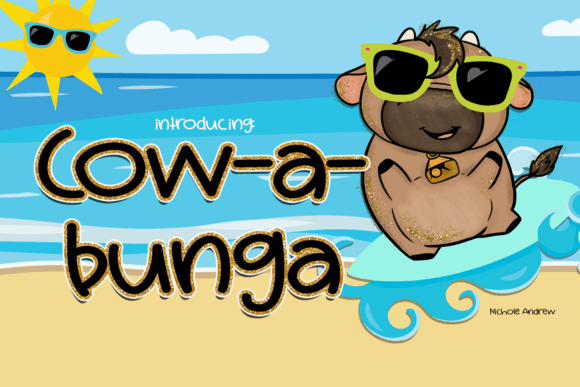
Unleash Your Creativity with the Ultimate Kid Font
Have you ever been stuck on a creative project, searching for that perfect font to give it a playful touch? We’ve all been there, staring at a blank canvas, desperate for inspiration. But what if we told you that the solution is just a click away? Introducing the “Cowabunga Font”, a charming handwritten font designed specifically for kids and kid-at-heart designers.
This delightful font is perfect for adding a whimsical flair to your designs, whether it’s a birthday invitation, party decoration, or scrapbook. With its unique charm, the Cowabunga Font will make your projects stand out from the crowd. As a designer, you’ll appreciate the versatility and fun this font brings to your work. So why wait? Get the Cowabunga Font today and let your creativity shine!
Cowabunga Font Key Features
- Unique Characteristics: The font features a playful, bold, and energetic style with a mix of uppercase and lowercase letters, perfect for adding a fun touch to designs.
Cowabunga Font Review
As a designer, I’m always on the lookout for unique and engaging fonts to elevate my projects. Cowabunga Font caught my attention with its playful, retro vibe. ✨ The font’s most notable feature is its nostalgic feel, reminiscent of classic 80s and 90s arcade games. It’s perfect for anyone looking to add a touch of nostalgia to their design.
The font is well-suited for headings and titles, where its bold and quirky personality can shine. ✨ It’s also great for creating eye-catching social media graphics and promotional materials. However, I found the font to be a bit too playful for body text, where legibility can be a concern.
- Unique and playful design that stands out from the crowd
- Nostalgic feel that’s perfect for retro-themed projects
- Great for headings and titles, where boldness and personality can shine
- Can be too playful for body text, potentially affecting legibility
- Lack of versatility for more formal or professional projects
Cowabunga Font is a fun and quirky addition to any designer’s toolkit. While it may not be suitable for every project, it’s perfect for those looking to add a touch of nostalgia and personality to their design. With its unique design and playful feel, Cowabunga Font is sure to make a statement. ⚠️ Just be mindful of its limitations and use it wisely.
The Cowabunga font is perfect for creating fun and playful designs, such as:
1. Social media graphics and posts.
2. Children’s book illustrations and designs.
3. Party invitations and decorations.
4. Web design elements, such as buttons and headings.
Remember to experiment with different font sizes, colors, and combinations to get the most out of the Cowabunga font.